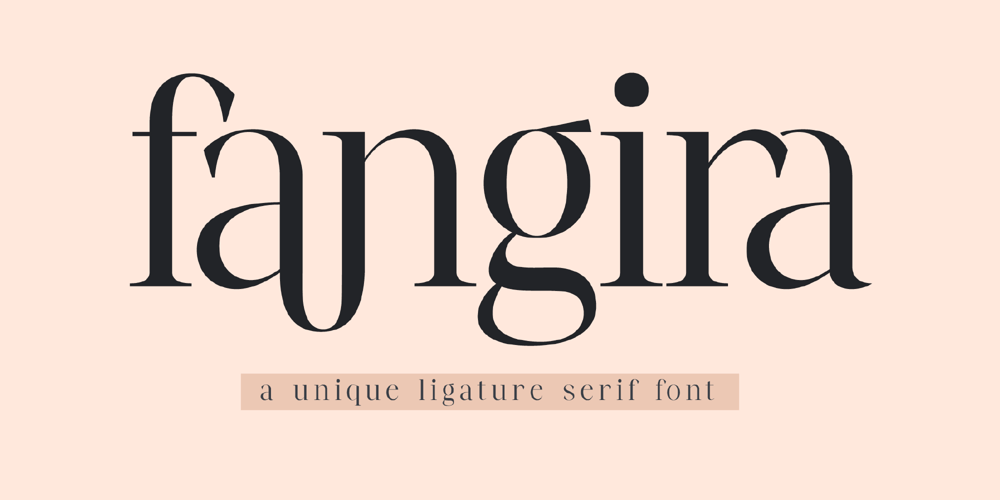
Fangira
Fangira font
Fangira Font Family was designed by Heru Utama Putra and published by Letterena Studios. Fangira contains 2 styles and family package options. Fangira is a modern and classic serif font featuring a unique style and fancy look. This typeface is perfect for an elegant & luxury logo, book or movie title design, fashion brand, magazine, clothes, lettering, quotes, and so much more.